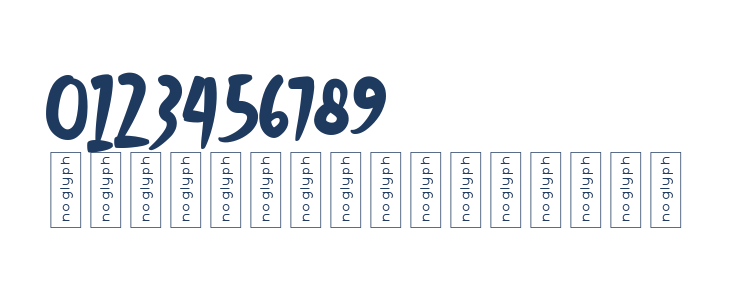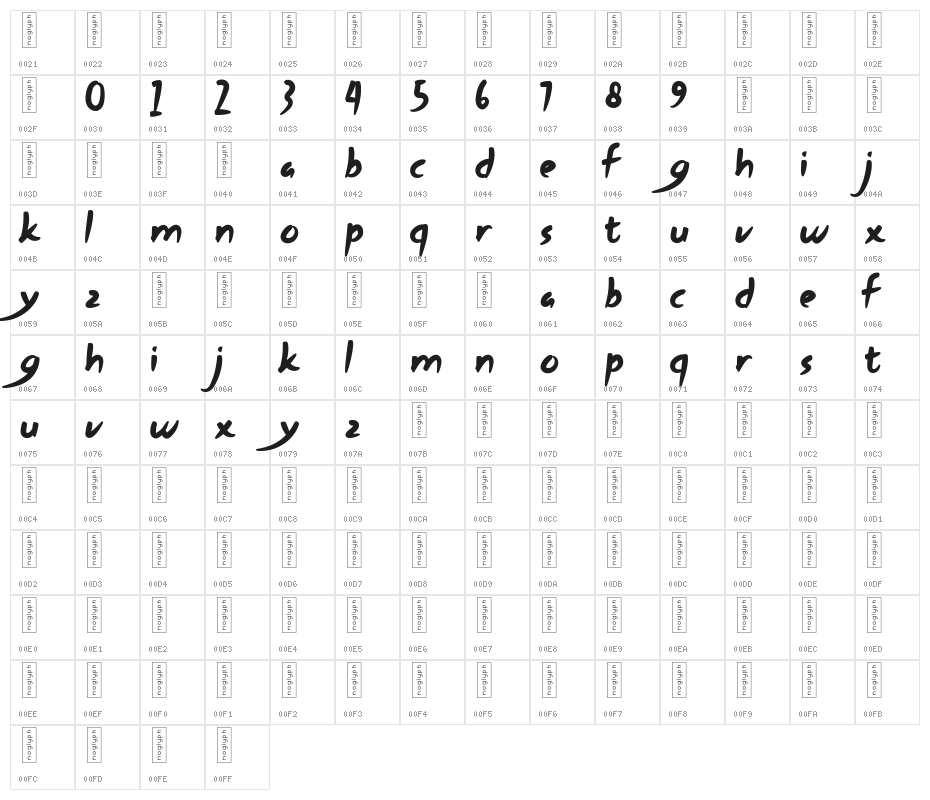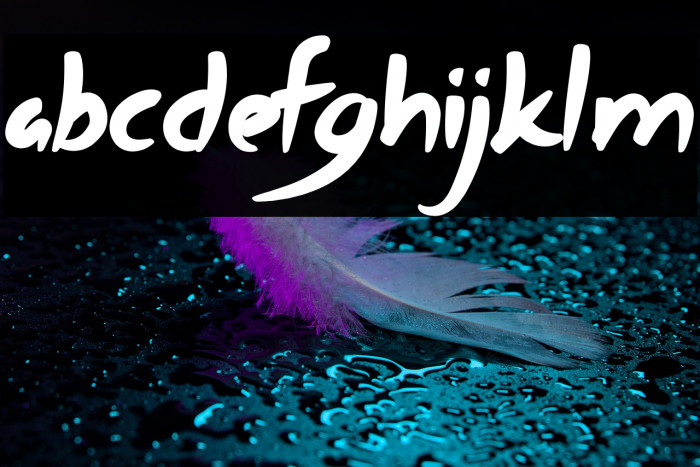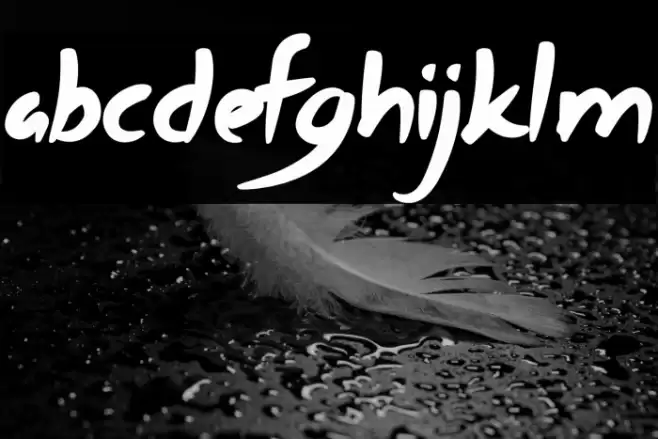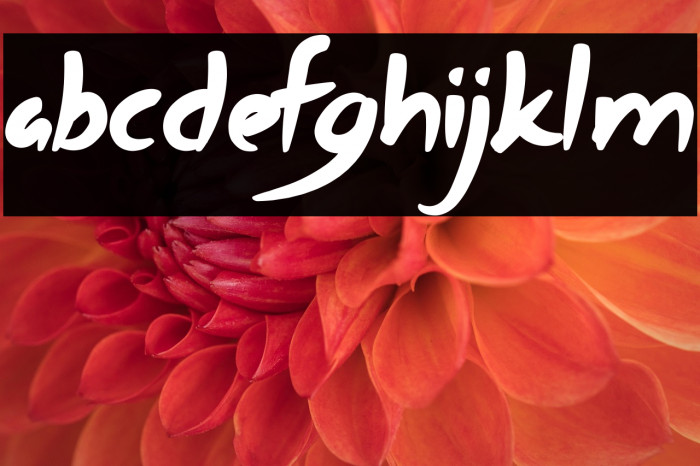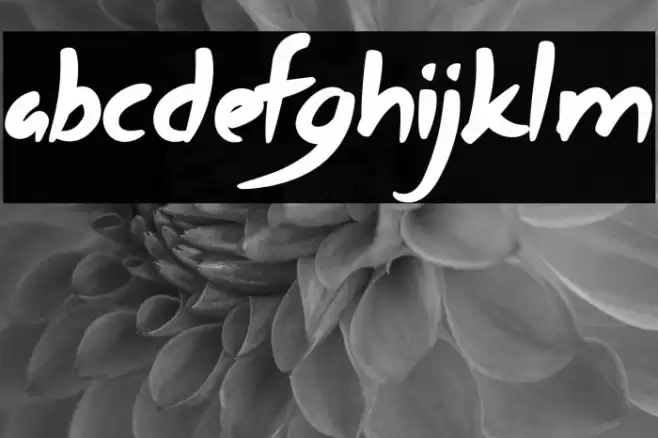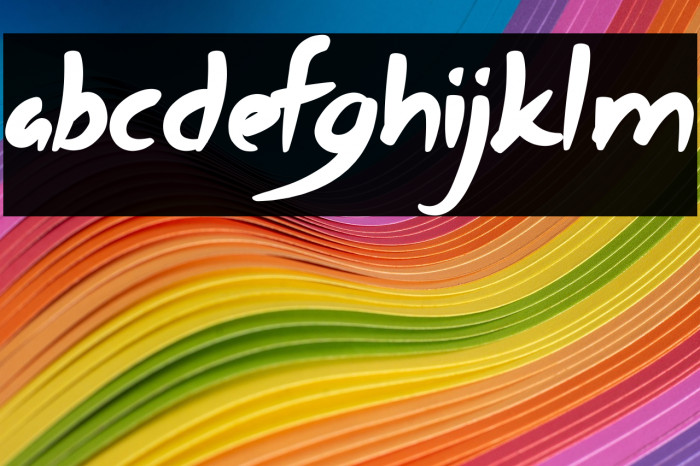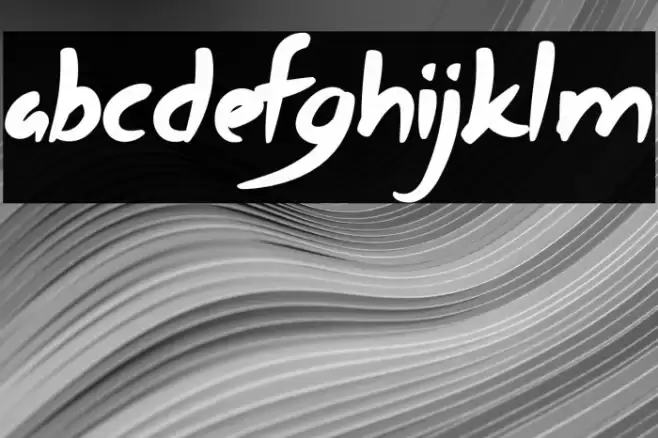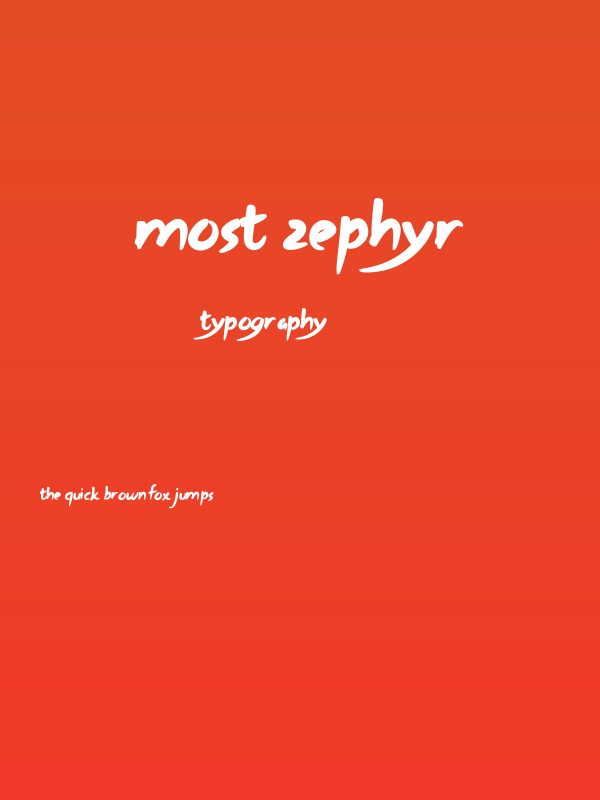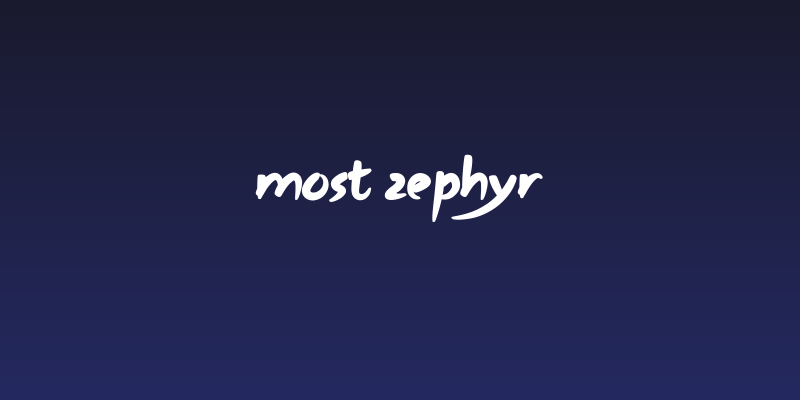
Most Zephyr Font
Most Zephyr Description
This font exudes a dynamic and energetic feel with its bold, flowing script style. The characters are crafted with a sense of movement, featuring smooth curves and a slightly slanted orientation that adds a touch of elegance. The uppercase and lowercase letters are harmoniously designed, maintaining a consistent stroke weight throughout. The numbers are equally expressive, matching the overall aesthetic of the alphabet. This font's unique character is further enhanced by its playful yet sophisticated appearance, making it suitable for a variety of creative applications.